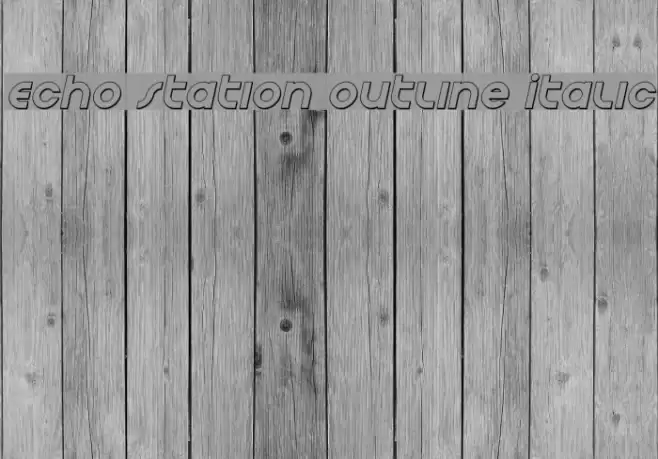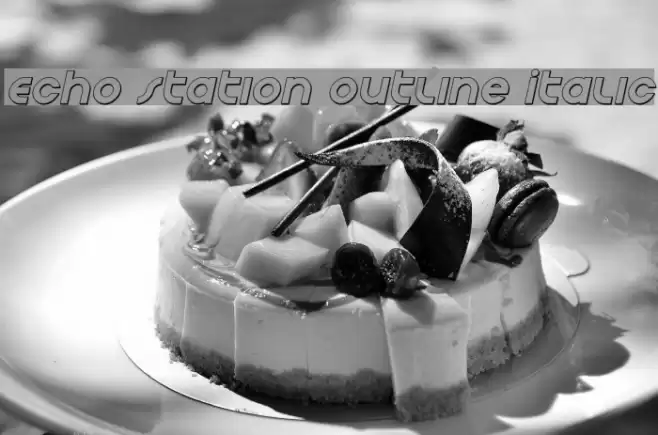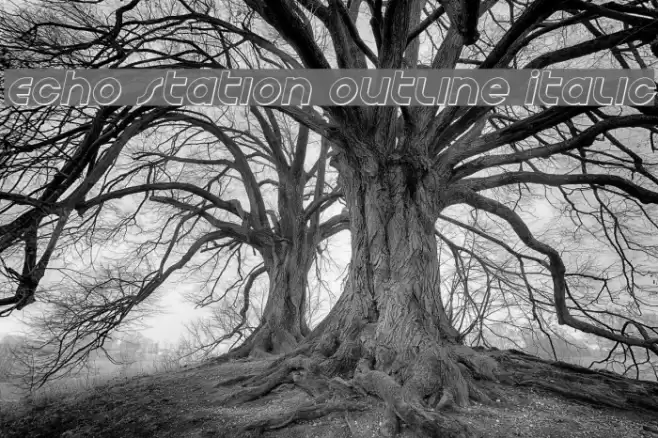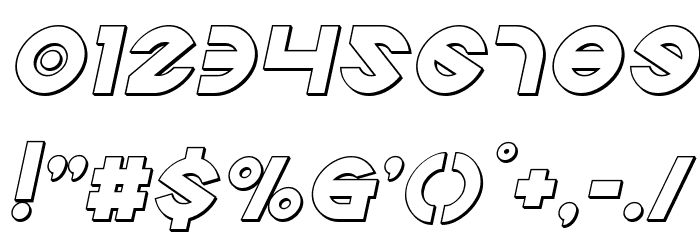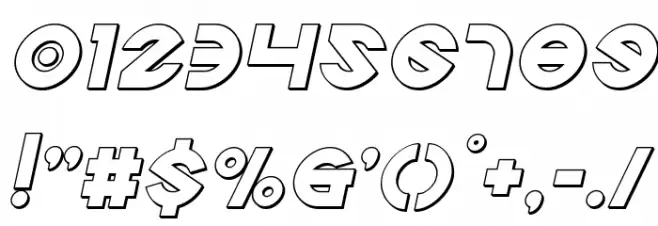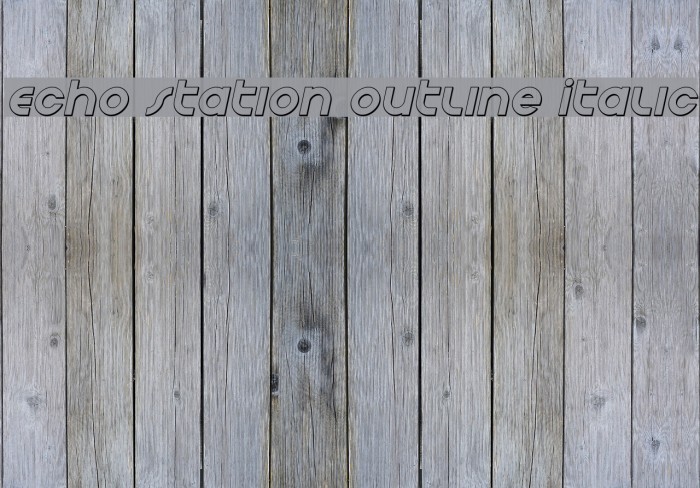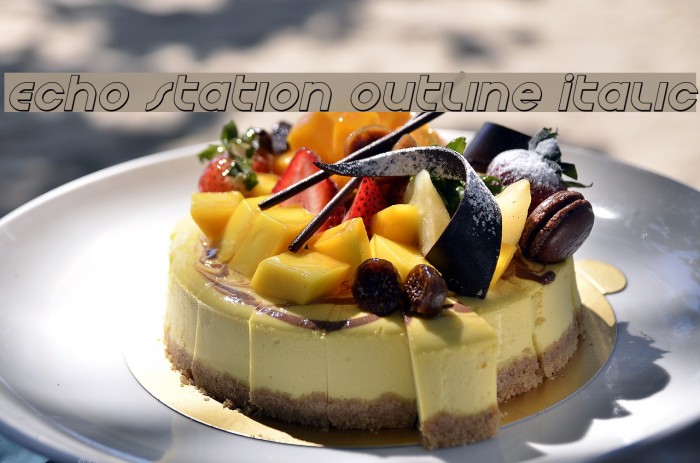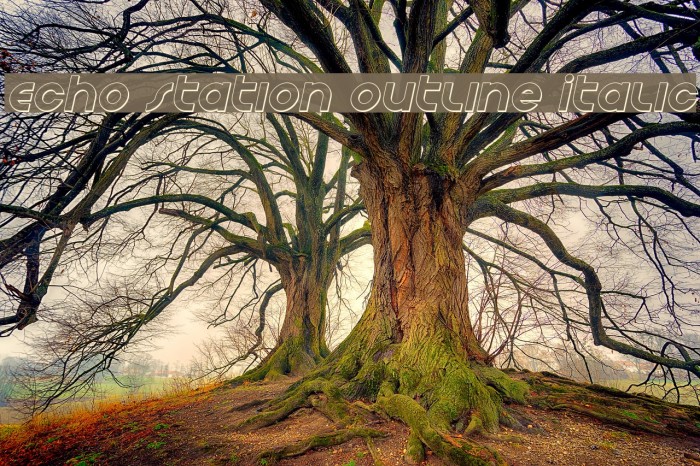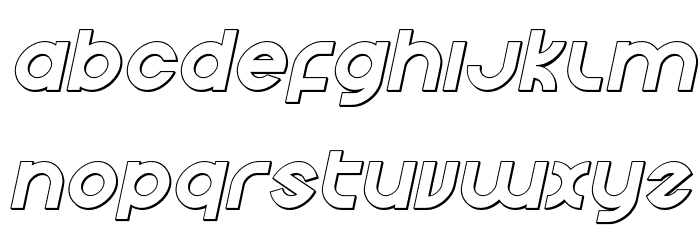
Echo Station Outline Italic Font
Echo Station Outline Italic Description
This font features a modern and futuristic outline style with a distinct italic slant. The characters are designed with a clean and geometric approach, emphasizing smooth curves and sharp angles. The uppercase and lowercase letters maintain a consistent style, while the numerals and special characters complement the overall aesthetic. The outline effect adds a unique dimension, making it suitable for eye-catching designs. Its sleek and contemporary look is ideal for projects that require a bold statement.
A modern, italic outline font with a geometric and futuristic style from Uncategorized fonts.
- Proposed Projects: Ideal for branding, posters, digital artwork, and futuristic-themed designs.